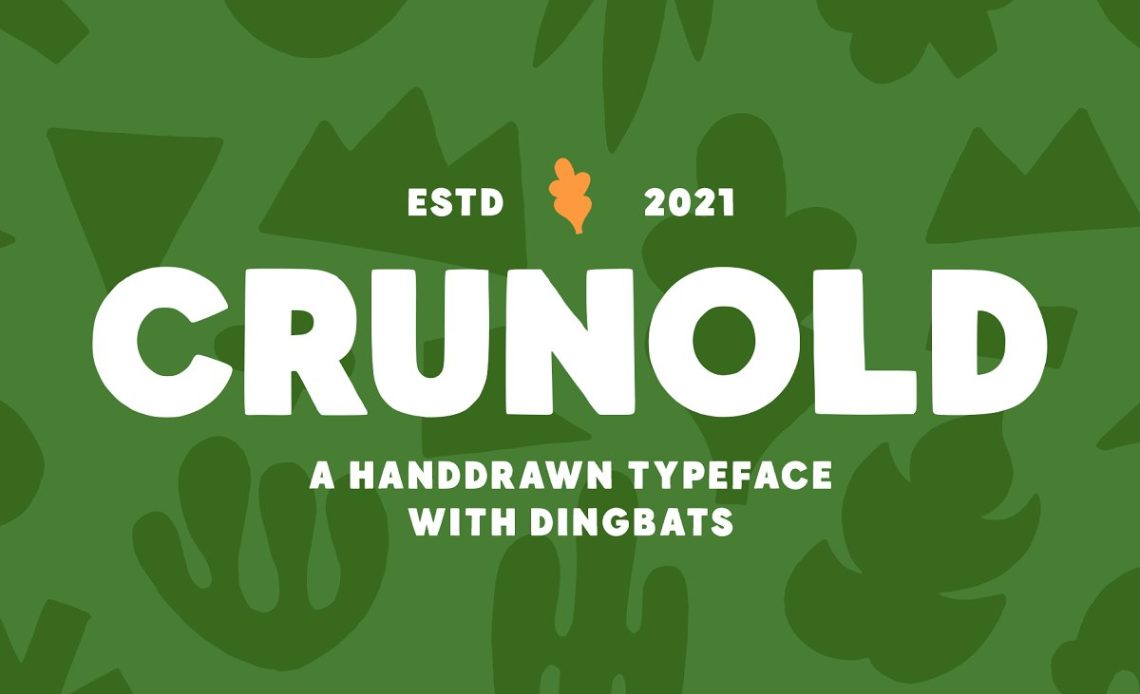
Introducing Crunold, the best font for PPT title! This sans-serif font family is the brainchild of Bagas Ardiatma, who has created a bold, hand-drawn font with dingbats as its perfect mate. Drawing inspiration from today's popular designs, abstract shapes are a crucial element of Crunold, making it the perfect addition to both digital and print designs.
Crunold's unique combination of typography and abstract shapes will make your designs stand out from the crowd. It's perfect for branding, headlines, packaging, and much more. The font is available in both uppercase and lowercase letters, as well as numbers and punctuation symbols, making it incredibly versatile for all your creative projects.
With Crunold, you don't have to worry about language barriers. The font comes with international characters, making it multilingual and accessible to a global audience. Additionally, it comes in OTF files with stylistic sets, allowing you to create endless possibilities for your designs.
Using Crunold will not only elevate your design to the next level, but it will also make the process easier. Its hand-drawn look gives your designs a unique, artistic touch, while its precision ensures your designs look polished and professional.
In summary, if you want to make your creative projects stand out with a unique, versatile, and multilingual font, Crunold is the perfect choice. Try it today and elevate your design game!